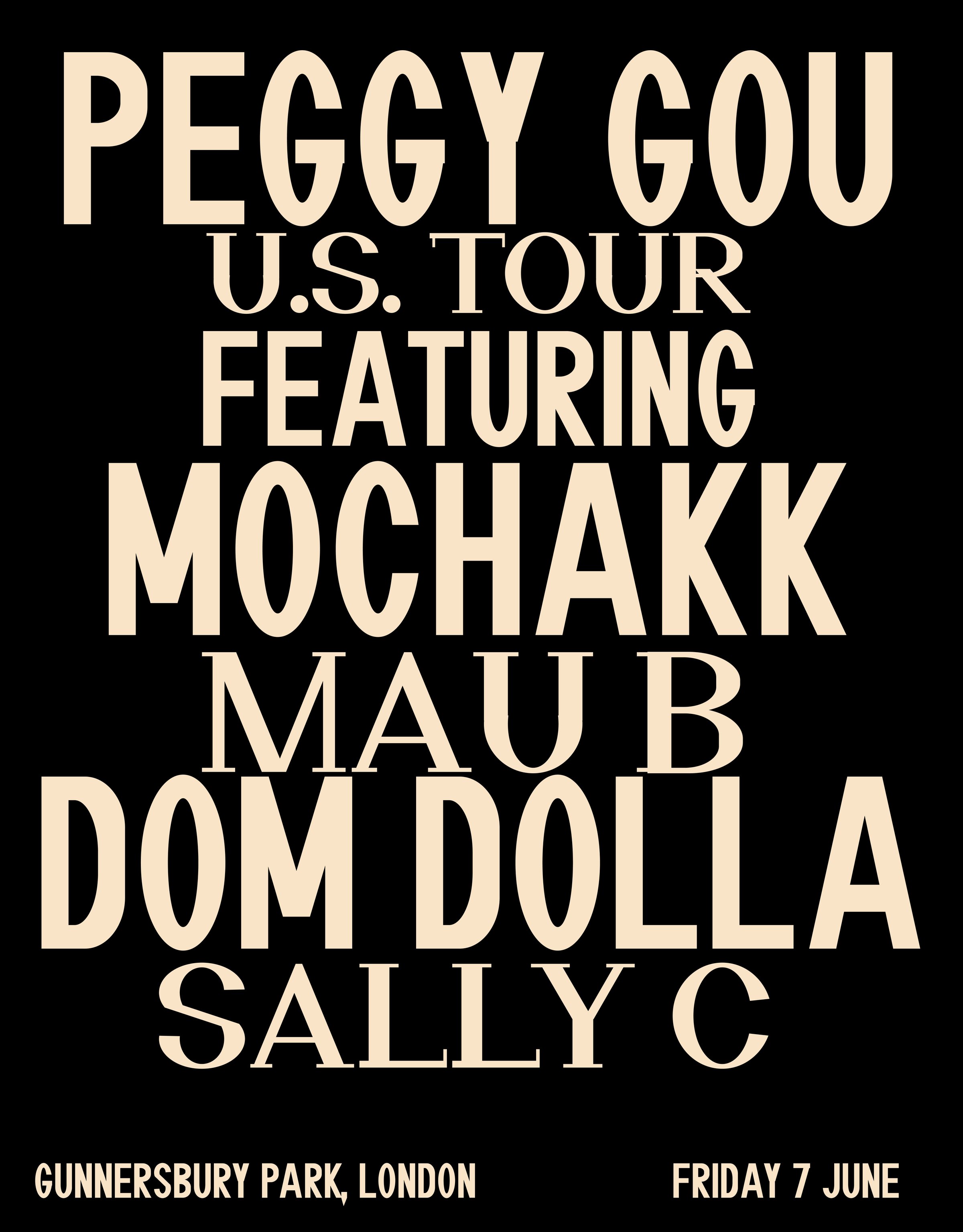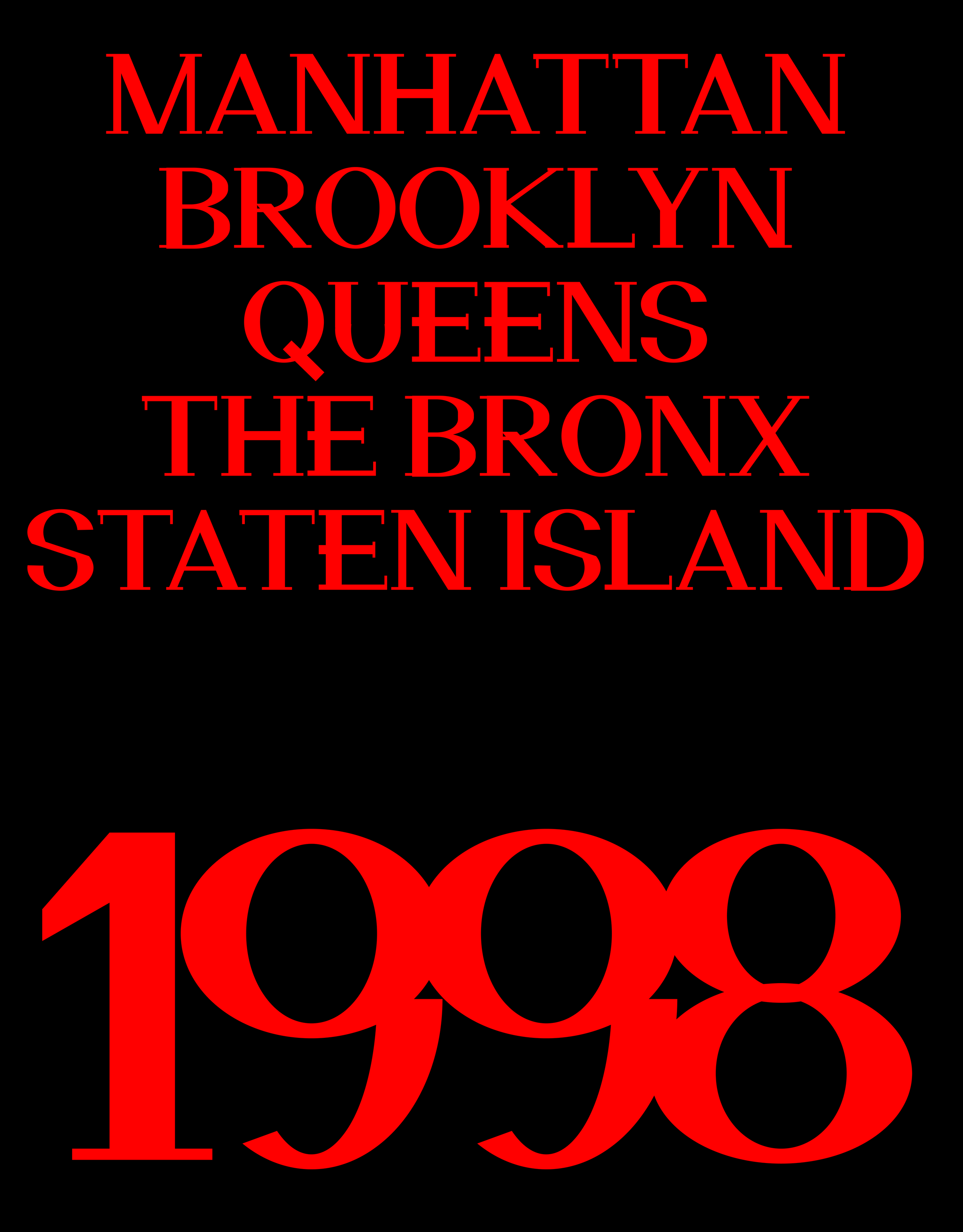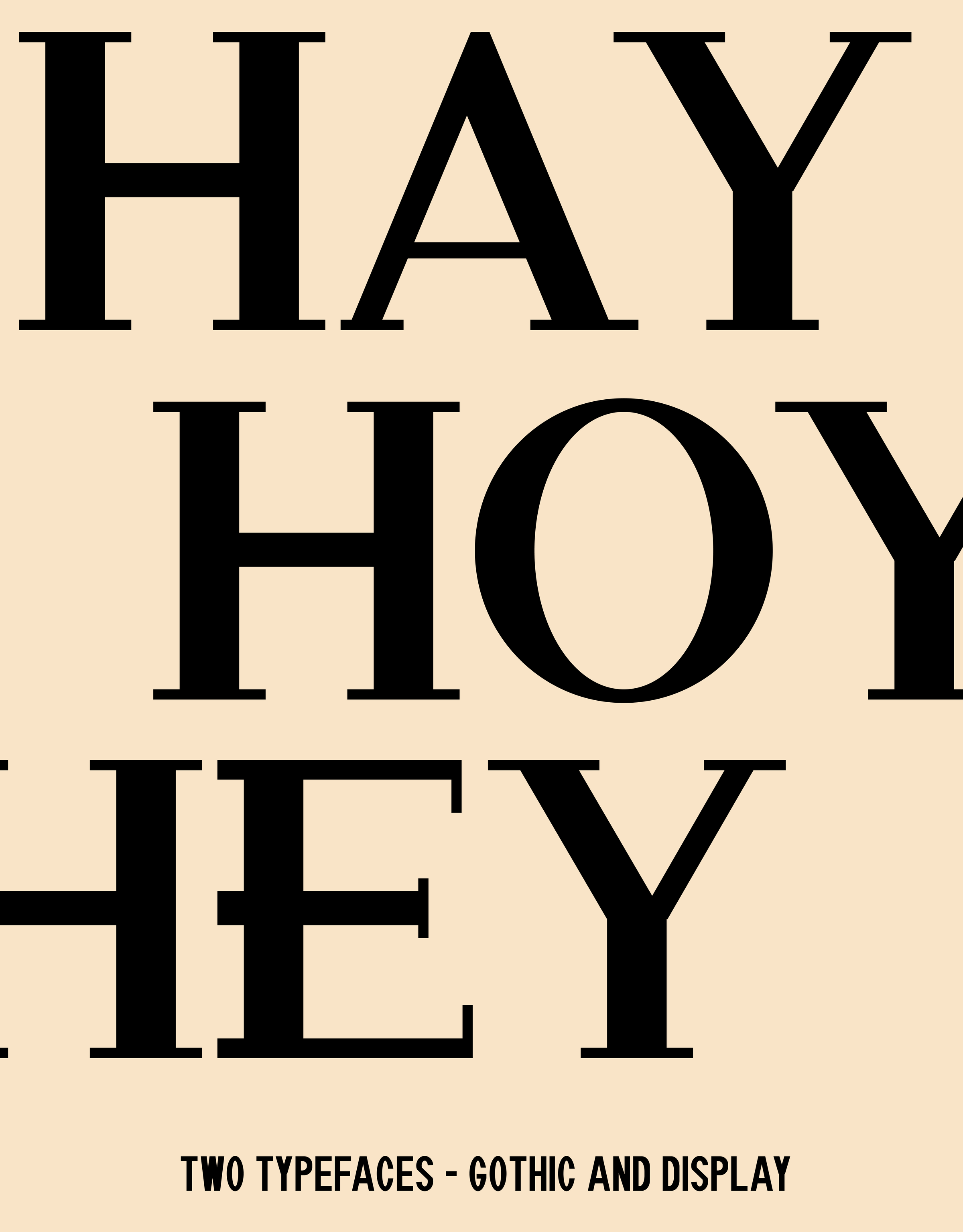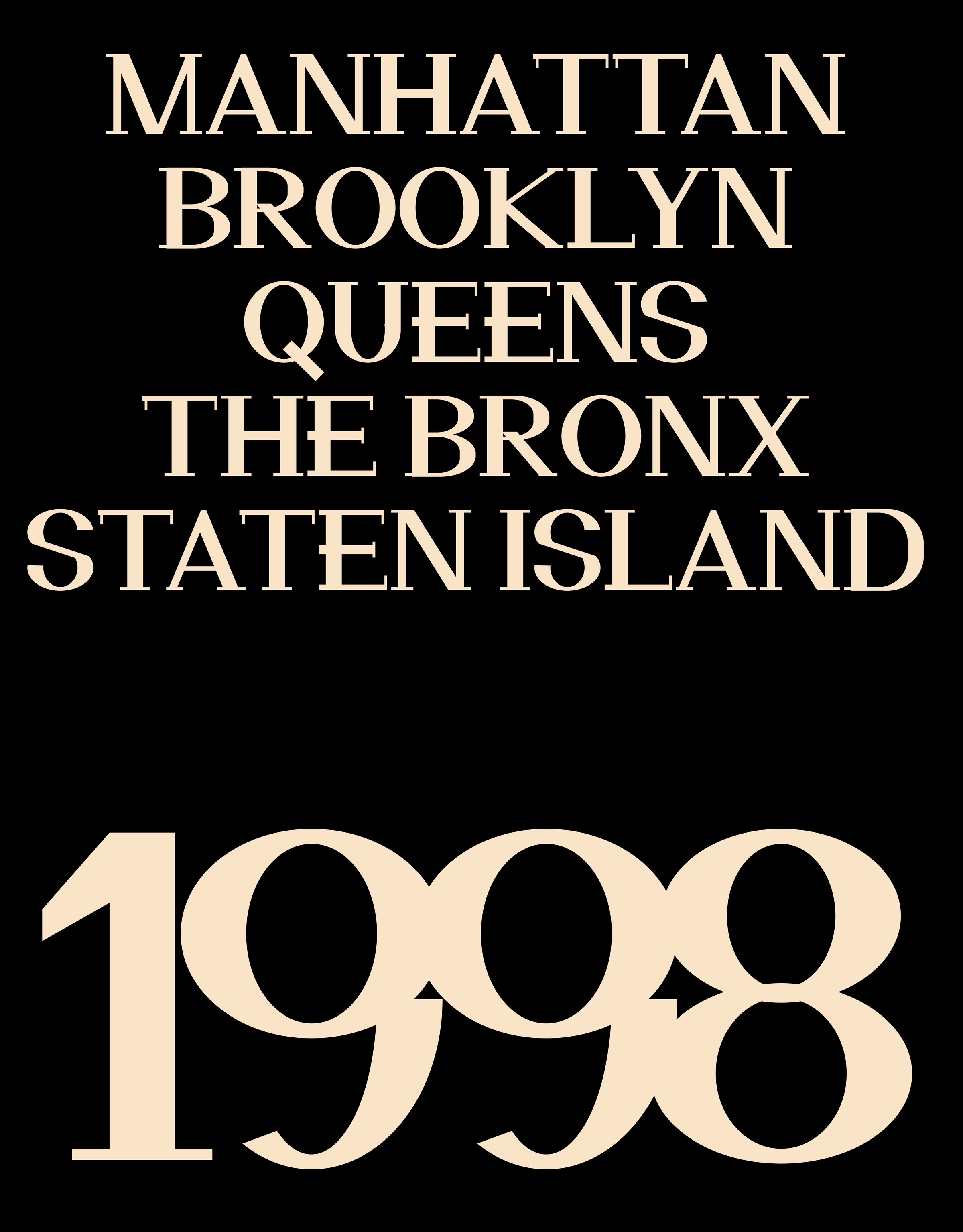
Guide 1939 Display
Display
Display Regular · weight 400
Display Bold · weight 700
High-contrast Didone. Heavy stems, hairline joins, long flat unbracketed serifs.
The Display bolds in place, Didone fashion: the bowls thicken inward from a fixed outer edge, so the widths hold and the counters tighten.